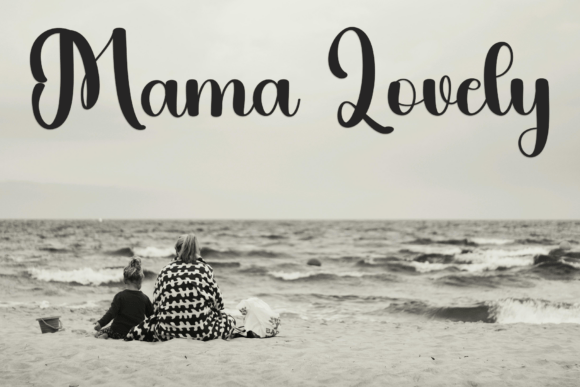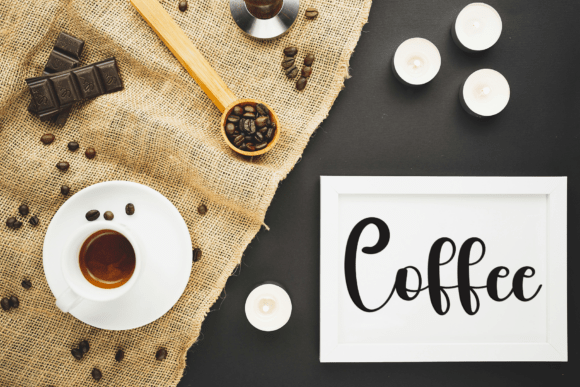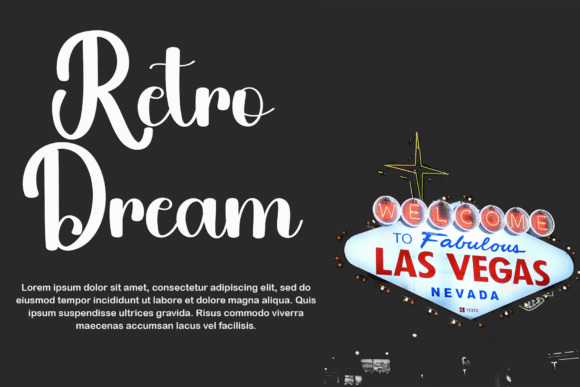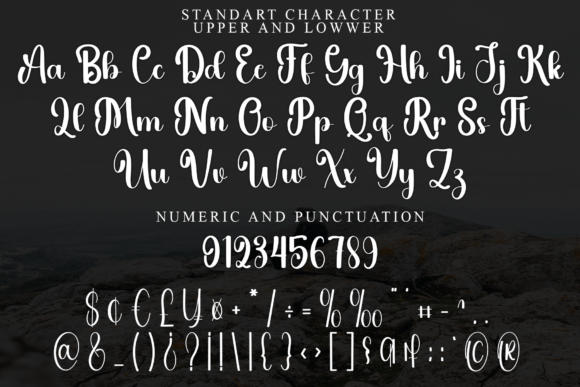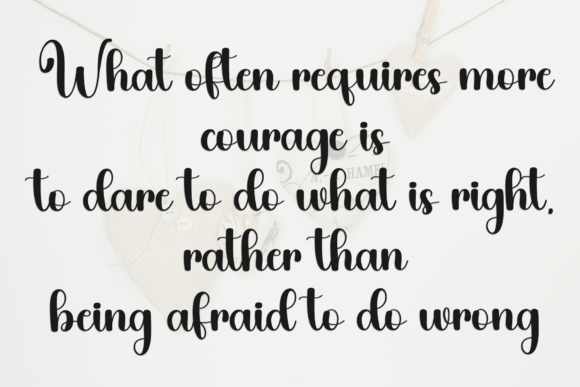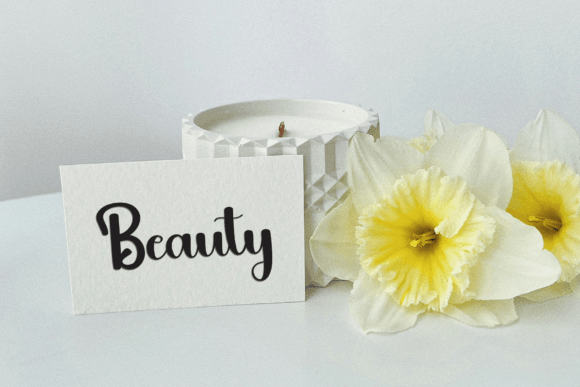
The Ultimate Guide to Funny Font: Adding a Touch of Whimsy to Your Designs
I’ll never forget the time I was working on a project for a children’s book, and I just couldn’t find the right font to match the playful tone of the story. The client wanted something that would appeal to kids and parents alike, but everything I tried seemed either too boring or too over-the-top. That’s when I stumbled upon the Funny font, and it was love at first sight! 😊
With its soft, unique touch and distinctive strokes, Funny font instantly brought the characters to life. I knew right then and there that I had found the perfect fit for my project. In this article, I’ll share with you why I love Funny font, its features, and how to make the most of it in your designs.
An Honest Review of Funny Font
What I Love About Funny Font ✨
- ✅ Unique and eye-catching design: Funny font stands out from the crowd with its quirky and charming style.
- ✅ Versatile and meaningful: Its distinctive strokes give it a special character that makes it perfect for a wide range of design projects.
- ✅ Variety of characters: With a range of characters to choose from, you can add depth and interest to your designs.
While Funny font is an amazing addition to any design project, there are a few things to keep in mind:
- ⚠️ May require adjustment for body text: Due to its unique design, Funny font might not be the best choice for long blocks of body text.
- ⚠️ Limited use in formal contexts: As with any playful font, Funny font might not be suitable for formal or professional projects that require a more serious tone.
The Backstory of Funny Font
Funny font was designed with the intention of creating a unique and eye-catching typeface that would add a touch of whimsy to any design project. The designer, inspired by the world of children’s books and playful illustrations, crafted Funny font to be both meaningful and versatile.
| Font Name | Funny Font |
| What makes Funny font unique? | Funny font’s distinctive strokes and soft, unique touch set it apart from other fonts. |
| Is Funny font suitable for body text? | While Funny font is perfect for headings and titles, it might not be the best choice for long blocks of body text. |
In conclusion, Funny font is an amazing addition to any design project, offering a unique and eye-catching touch that’s sure to delight audiences of all ages. With its versatility, compatibility, and range of characters, Funny font is the perfect choice for designers, crafters, and creative hobbyists looking to add a touch of whimsy to their work.